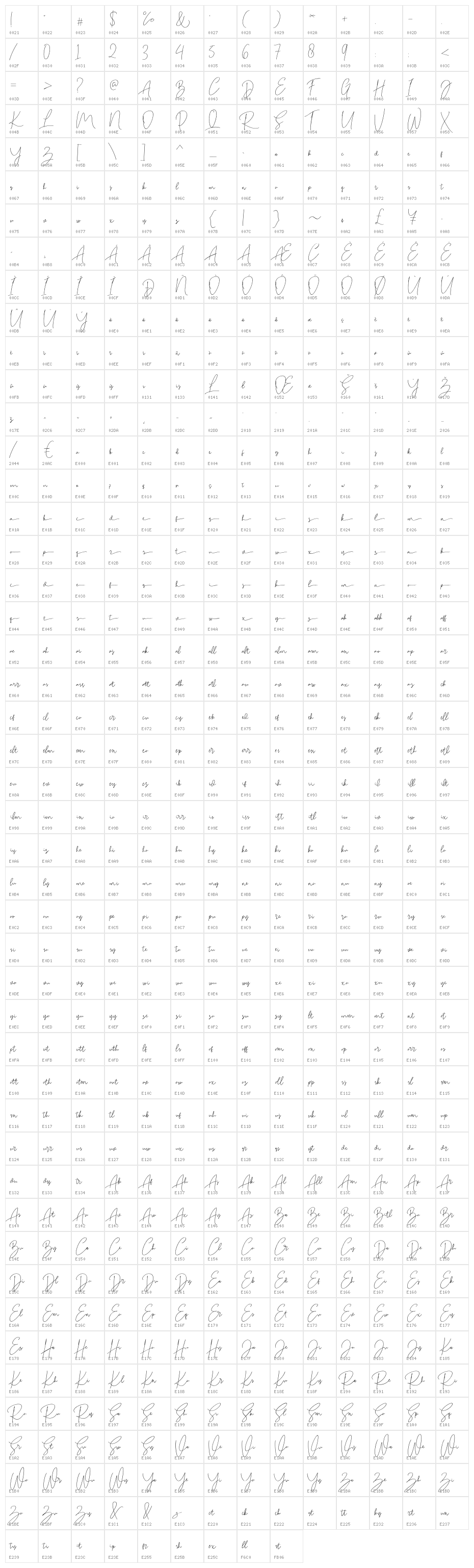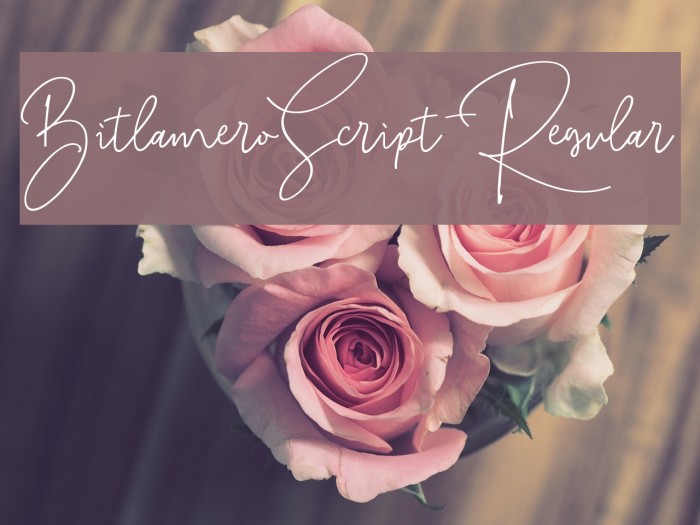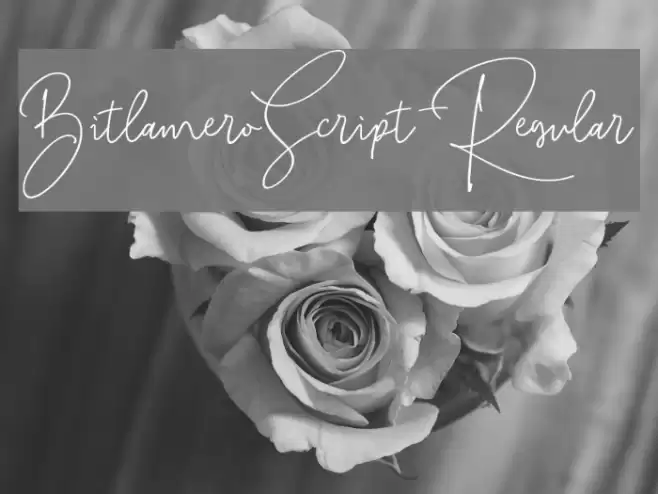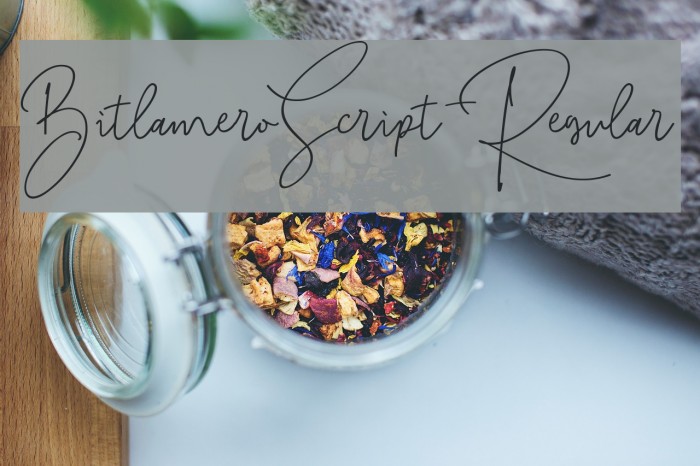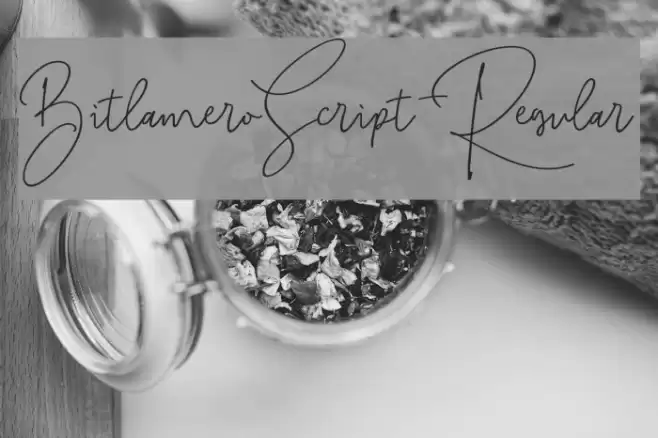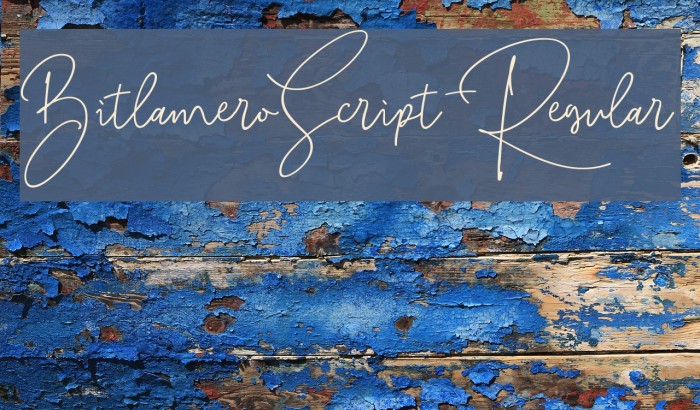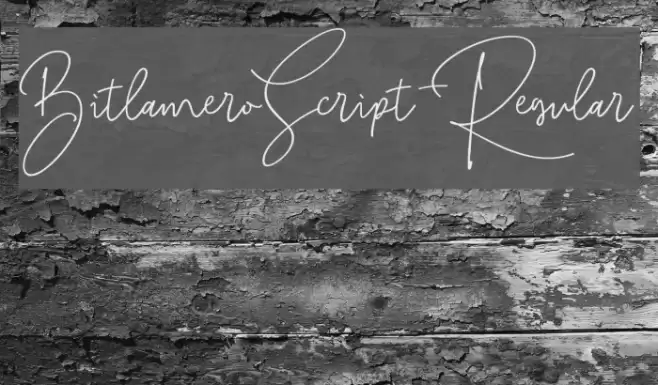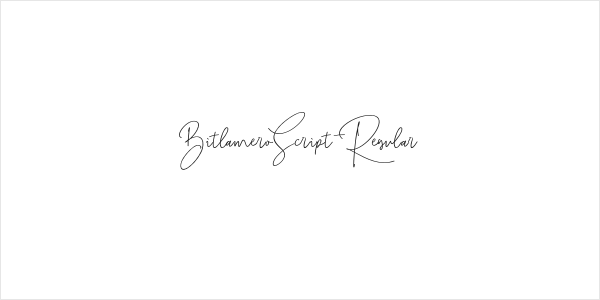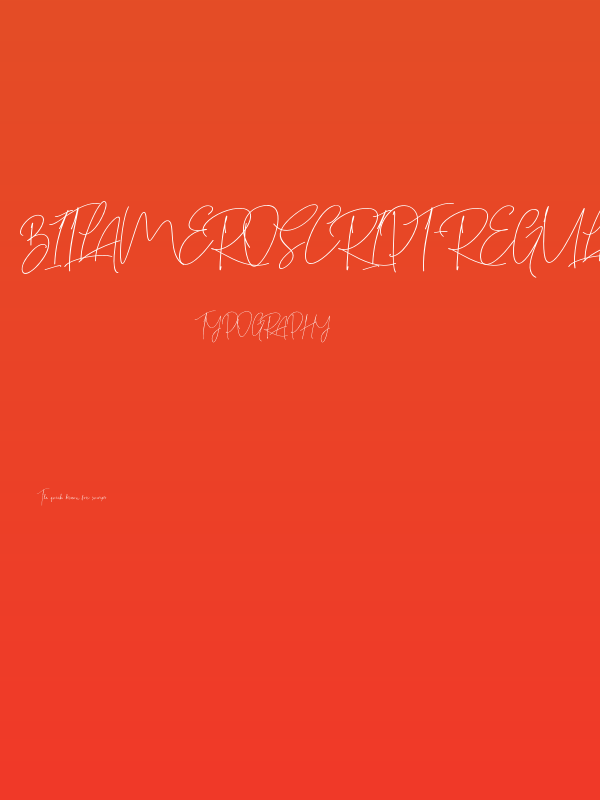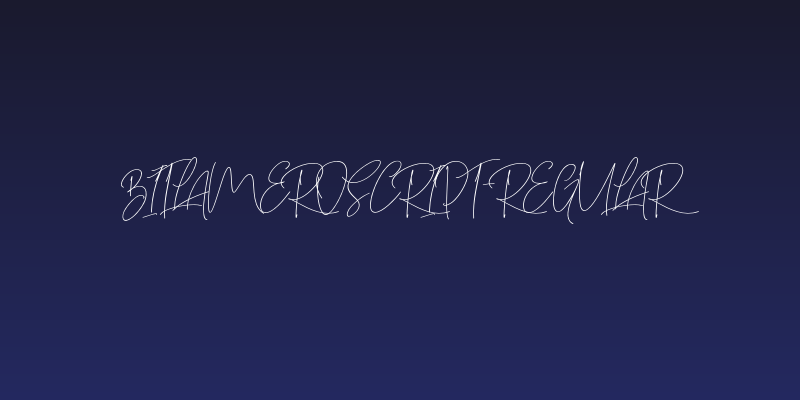
BitlameroScript-Regular Font
BitlameroScript-Regular Description
This font features a fluid, handwritten style that exudes elegance and personality. The uppercase letters are tall and slender, with a graceful, flowing appearance that suggests movement and dynamism. The lowercase letters maintain a consistent style, with smooth curves and loops that enhance readability while retaining a unique flair. Numbers and special characters are designed with the same attention to detail, ensuring a cohesive look across all text. The overall impression is one of sophistication and creativity, making it suitable for projects that require a personal touch.
| Overall Style | Elegant, Creative |
| Use Case | Logos, Invitations, Artistic Projects |
| Proposed Projects | Ideal for wedding invitations, personal branding, greeting cards, and artistic projects that require a personal and elegant touch. |